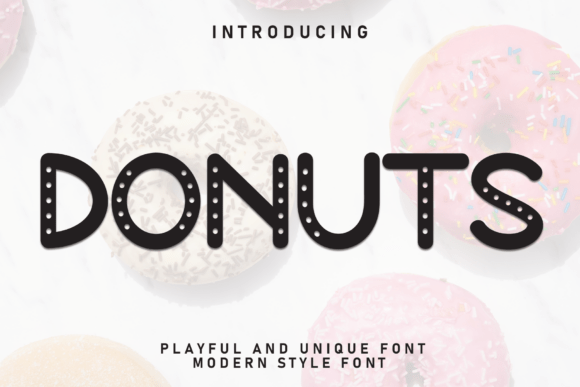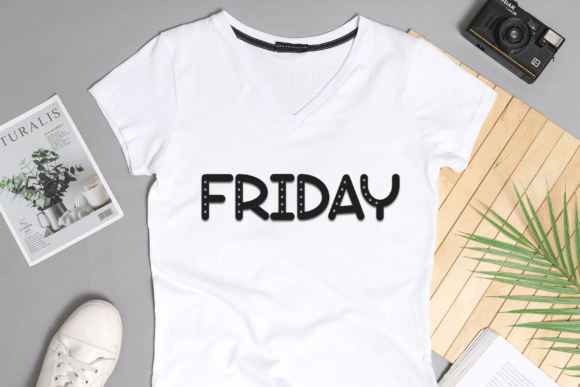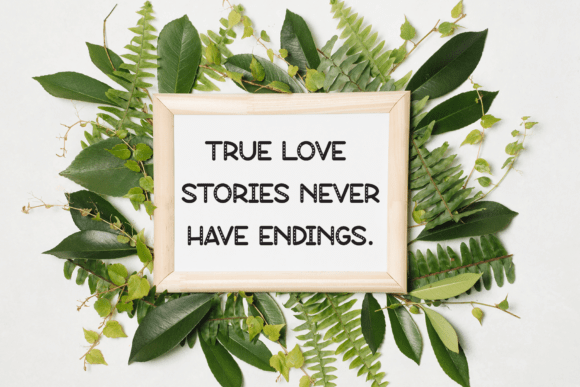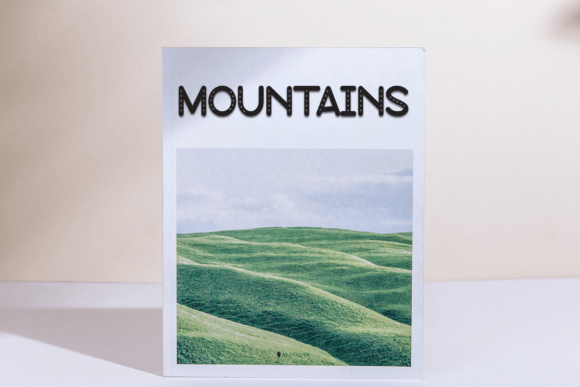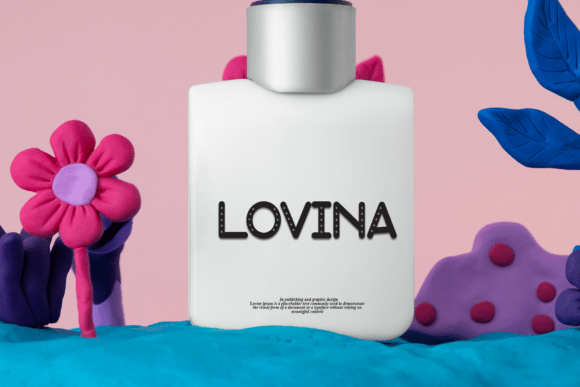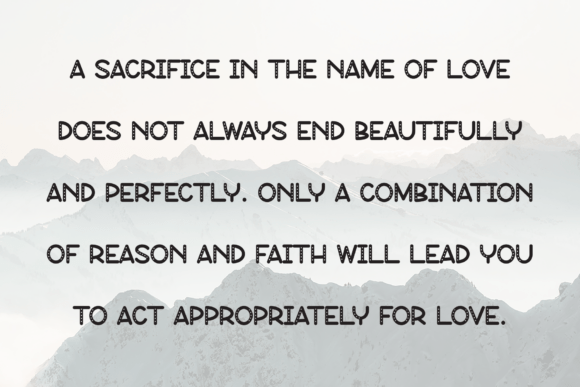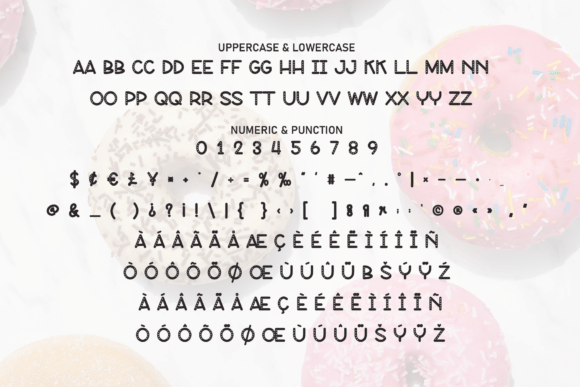
Have you ever been in the middle of a design project, staring at a blank screen, and suddenly, an idea hits you? The perfect font pops into your head, and you can envision the entire design coming together. For many designers, this moment is what makes all the hard work worth it.
One such font that can spark this creative moment is the Donuts Font – a clean, casual display font that brings a relaxed vibe to any project. Its friendly letterforms and balanced structure make it perfect for headlines, posters, packaging, and branding that aims to feel modern yet laid-back.
For designers, finding the right font can be a game-changer. It’s what sets a design apart and gives it personality. The Donuts Font is a valuable addition to any designer’s toolkit, offering style and readability in equal measure.
Donuts Font Key Features
- Font Family: Donuts is a sans-serif font family designed by Ryoichi Tsunekawa.
- Font Size: The font family includes various font sizes, including Extra Light, Light, Regular, Medium, Bold, Extra Bold, and Black.
- Unique Characteristics: Donuts Font features a unique rounded design with subtle curves, giving it a friendly and approachable feel.
Designer Review: Donuts Font
Overall, I was pretty excited to dive into the Donuts Font, but my experience was a mixed bag. Let’s start with the good stuff:
- ✨ Unique design: Donuts Font offers a distinctive, playful feel that’s perfect for branding and marketing materials where you want to grab attention.
- ✨ Customizable: The font includes a range of styles and variations, making it easy to customize to fit your needs.
- ✨ Friendly support: The developers behind Donuts Font seem to be actively engaged with the community, responding to feedback and questions.
However, there are some limitations that kept me from giving it a full-throated endorsement:
- ⚠️ Limited language support: Donuts Font only includes support for a limited range of languages, which might be a problem for projects that require multilingual support.
- ⚠️ Some compatibility issues: I encountered some issues with the font displaying correctly in certain browsers and operating systems.
Overall, Donuts Font is a solid choice for projects where you want a fun, eye-catching font. Just be aware of its limitations, and make sure you have the necessary resources to work around them.
Tips for Getting the Most Out of the Donuts Font
Use the Donuts Font for creative projects that require a playful and whimsical touch. Experiment with different font sizes and styles to add visual interest to your design.
The Donuts Font is commonly used for:
- Birthday invitations and party decorations
- Children’s book illustrations and design